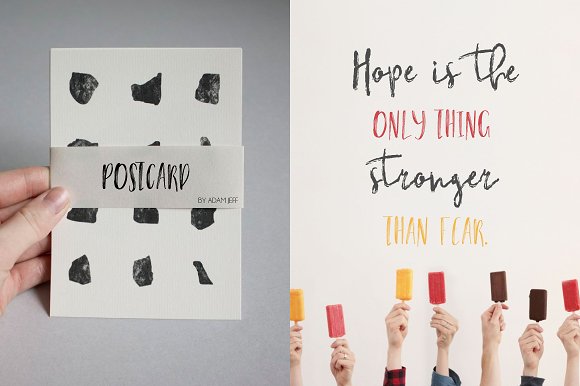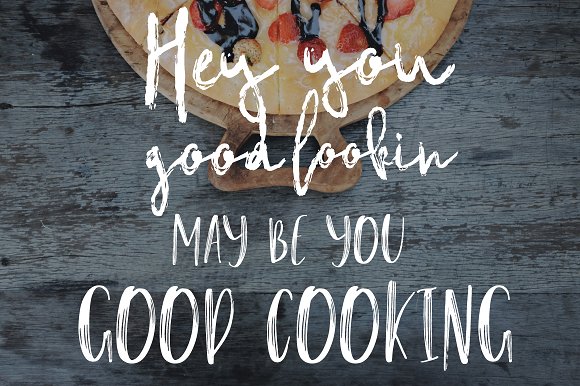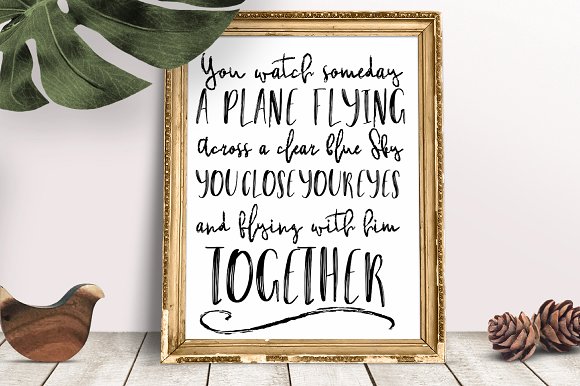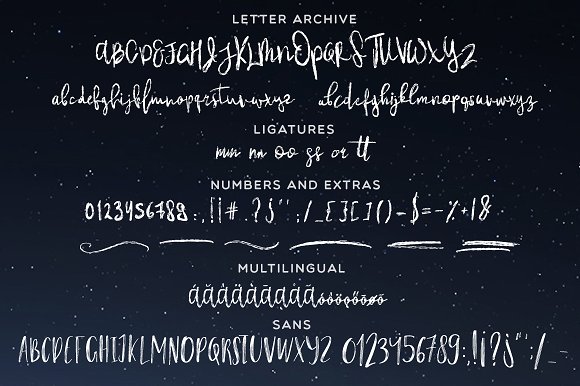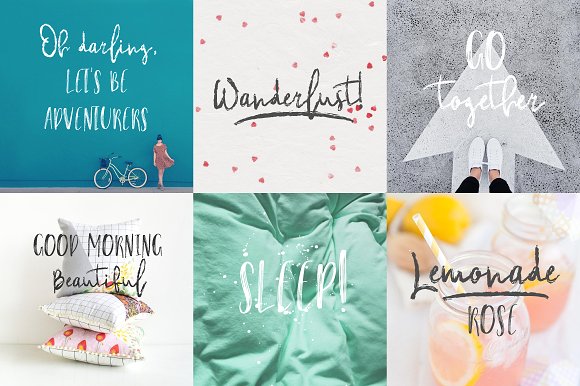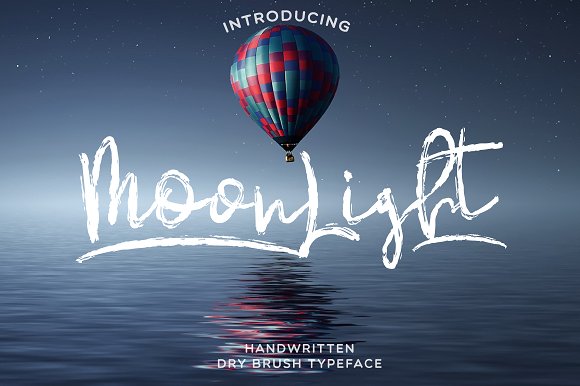
Moonlight Script Font
Introducing: Moonlight Script! A handwritten multilingual brush font with Sans styles. Very suitable for greeting cards, branding materials, business cards, quotes, posters and more!